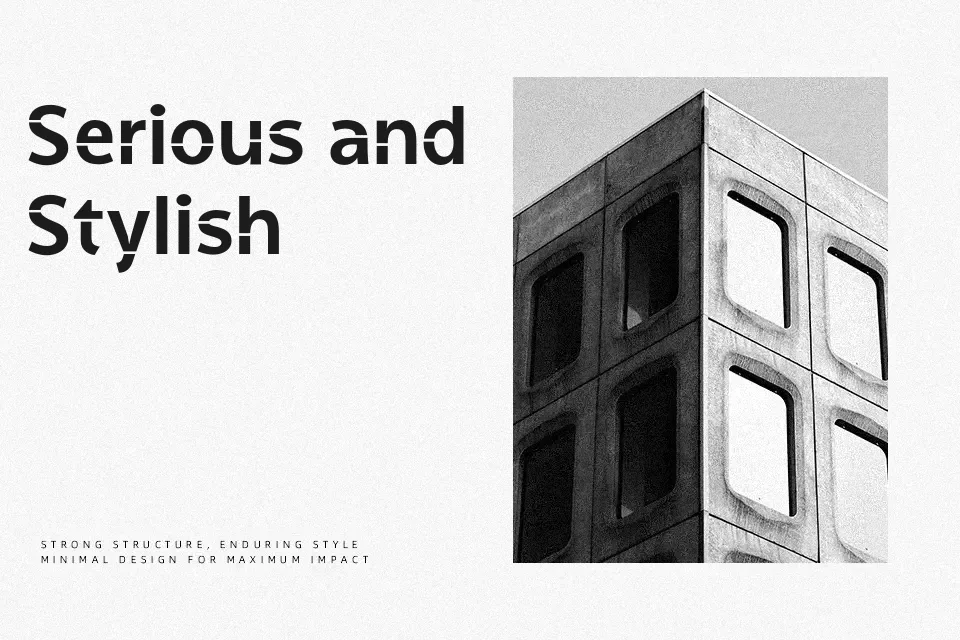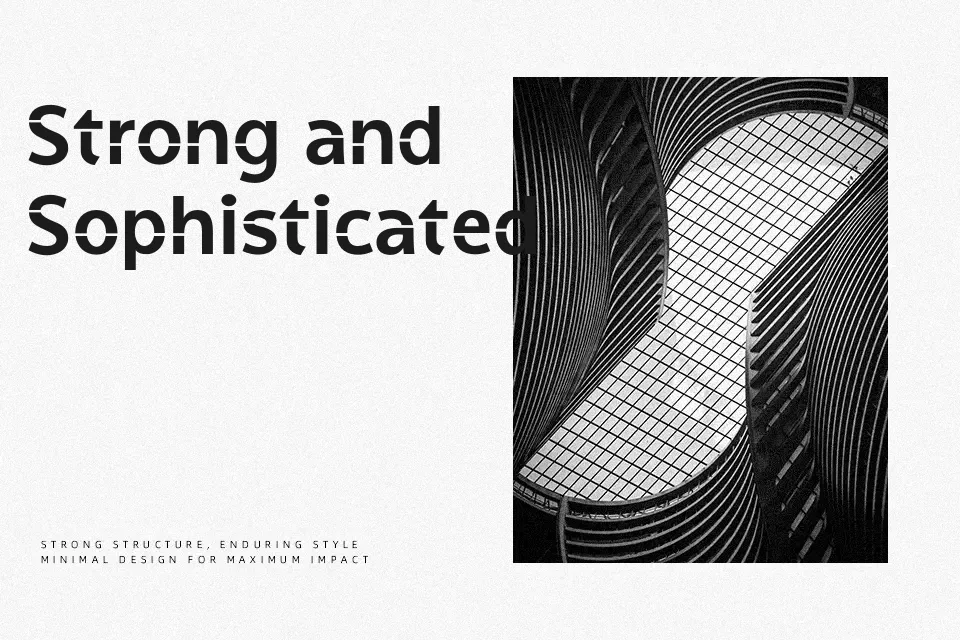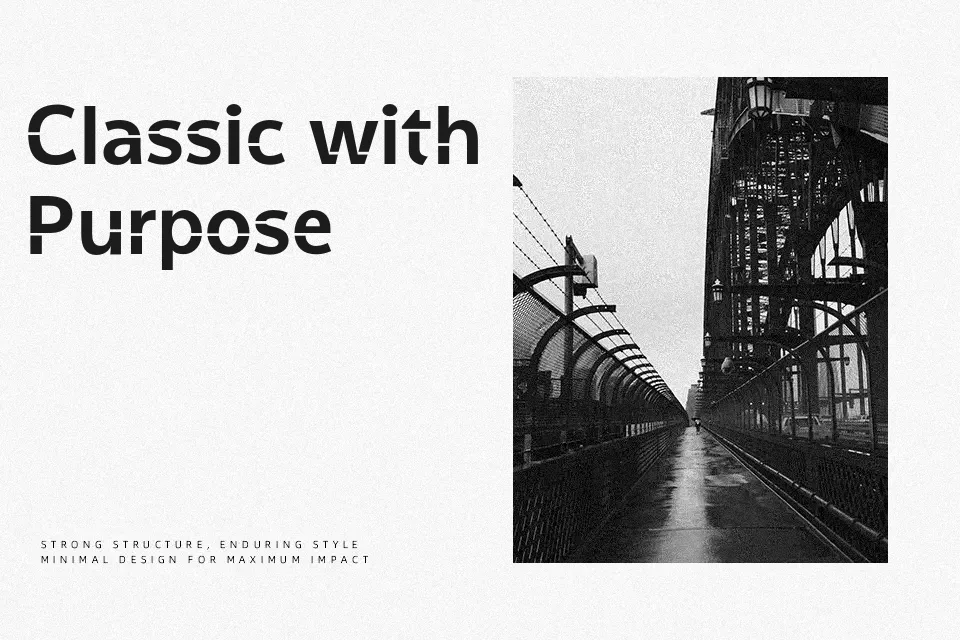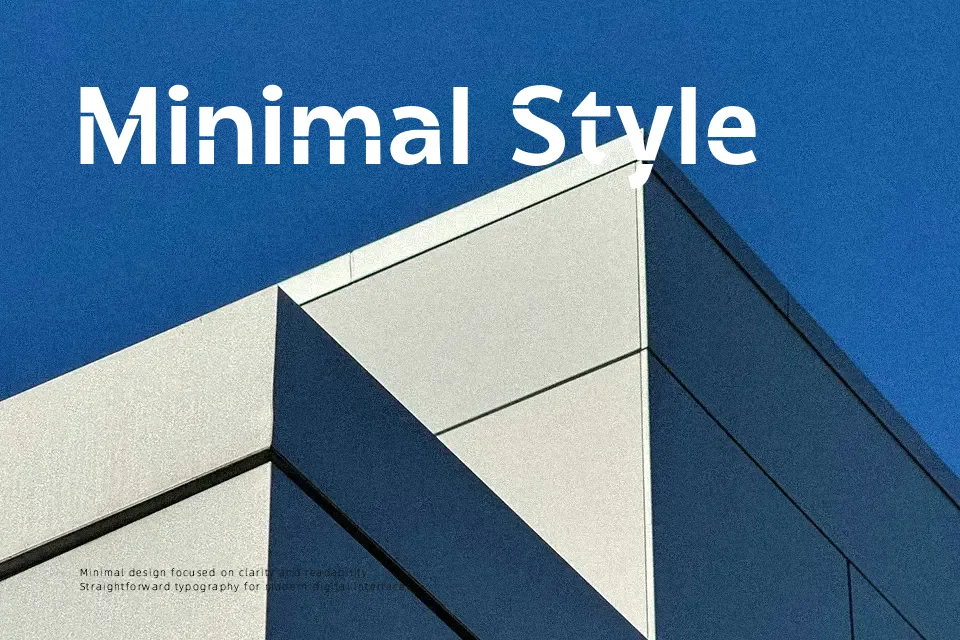
Stenha Font
Stenha Font features a heavy stencil construction defined by sharp segmented strokes, balanced proportions, and uniform geometric angles. The deliberate breaks within each letterform create a structured, industrial aesthetic that maintains strong visual clarity in large headlines and bold title treatments. While the characters offer immediate impact and reliable legibility in display contexts, the dense weight and stencil gaps reduce comfort across extended reading environments. For short-form graphics, signage, and merchandise, the typeface delivers a commanding tone, but small captions lose fine structural details. The design functions at its peak when given ample breathing room.
Best For: industrial poster headlines,military apparel graphics,action game title cards,hardware packaging labels
Not Ideal For: long body text paragraphs,dense editorial articles,mobile ui body copy,legal documentation
Perfect for gaming, headline, and logo, with a bold and display style.